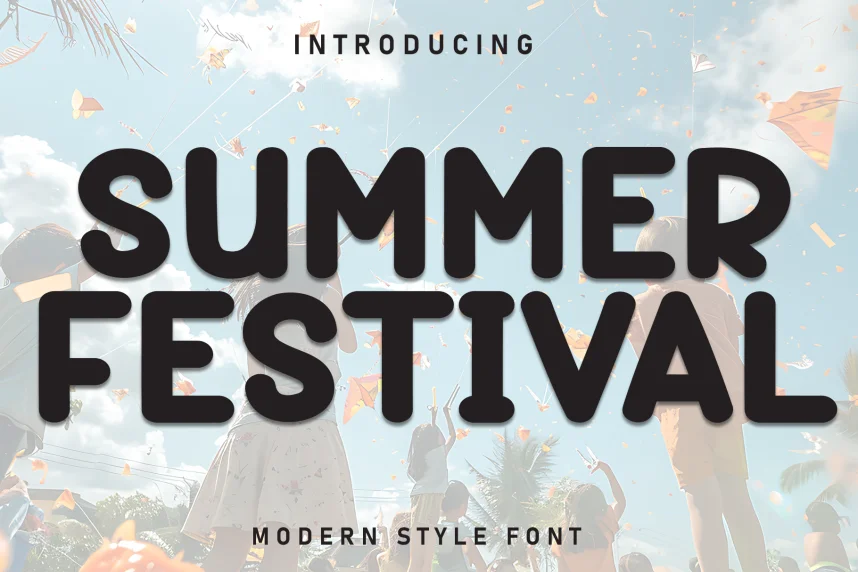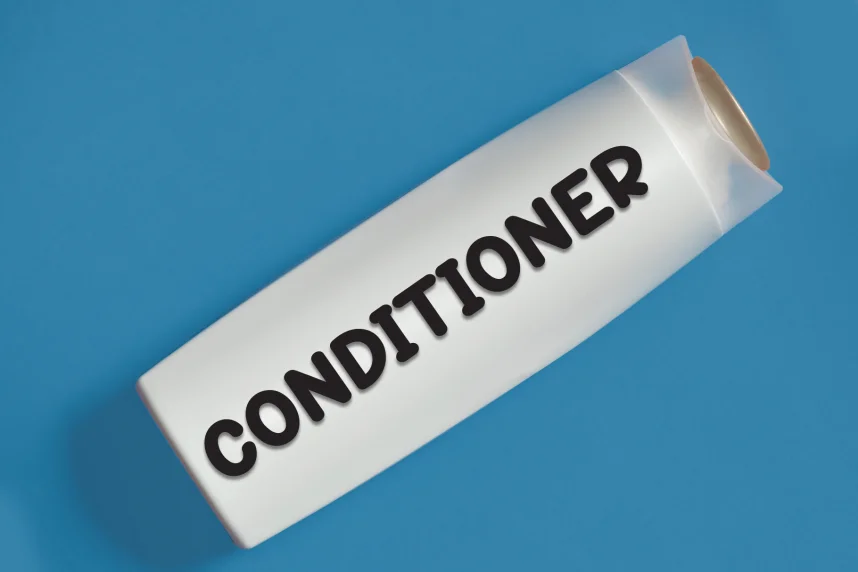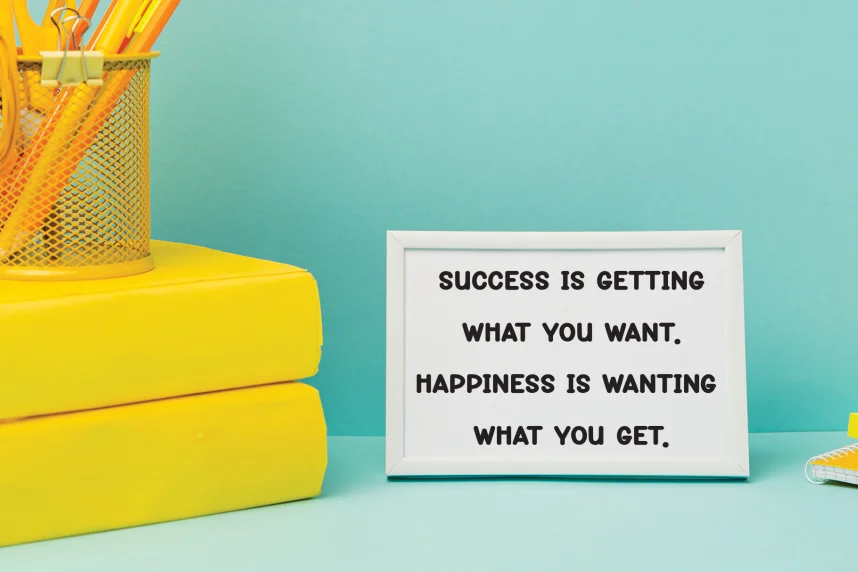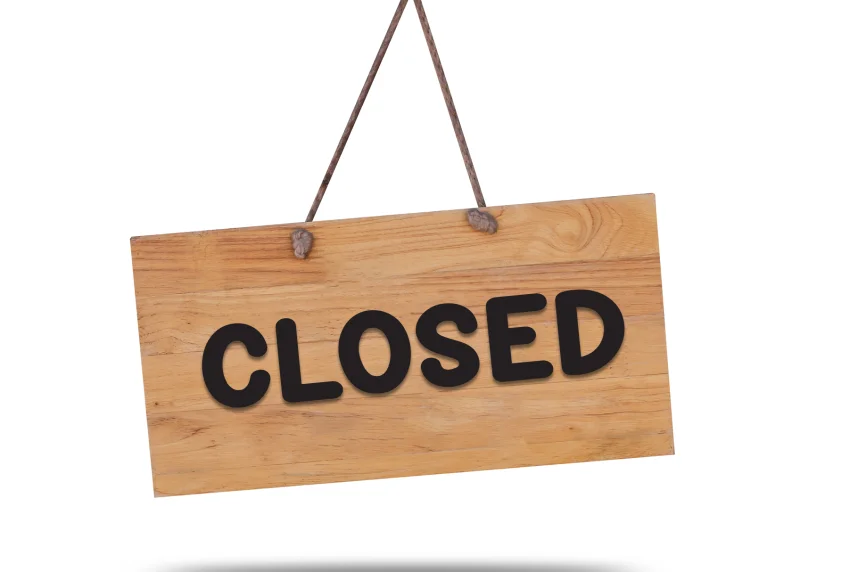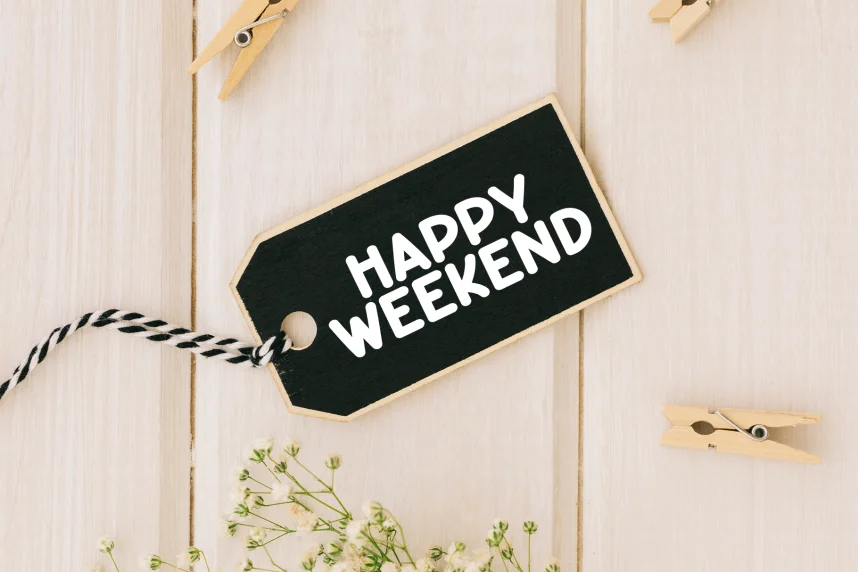
Summer Festival Modern Style Font addresses the challenge of creating eye-catching designs for festivals and events while ensuring the text remains legible. It helps designers craft visuals that stand out in vibrant, festive designs.
This display font features bold, energetic strokes and irregular shapes that give it a playful and festive feel. The letterforms have thick, contrasting lines and dynamic curves that make it perfect for headline text and logo design.